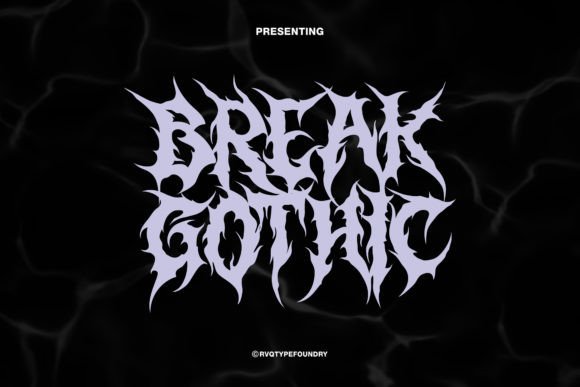
Introducing Break Gothic Font, the ultimate choice for unleashing your inner rocker and exploring dark themes. Created by Rvq Type Foundry, this cool and edgy display font is inspired by the brutal aesthetics of death-metal culture.
With its sharp and angular letterforms, Break Gothic exudes power and intensity, capturing the essence of the rebellious spirit. Its bold strokes command attention and make a bold statement, making it the perfect font for impactful headlines, album covers, and posters.
Are you ready to make a lasting impression? Break Gothic Font is here to help you stand out from the crowd. Its raw and rebellious style sets you apart, leaving a lasting mark on your audience.
Picture this: a Halloween party invitation with Break Gothic Font. The words come to life, sending shivers down your spine, as the font perfectly captures the eerie atmosphere. It's the best font to use for Halloween-themed projects, adding a touch of darkness and intrigue.
But Break Gothic Font doesn't stop there. Its versatility extends beyond Halloween. Looking to create a powerful and captivating logo? Break Gothic has got you covered. Its bold and commanding presence instantly grabs attention and leaves a lasting impression.
Let your creativity run wild with Break Gothic Font. Its edgy and daring nature allows you to explore new boundaries and push the limits of design. Express yourself like never before and watch as your projects come to life with a touch of raw energy.
Join the ranks of renowned designers and artists who have discovered the power of Break Gothic Font. Its unique and captivating style has made it a favorite among those seeking to make a statement. Don't settle for ordinary fonts - elevate your designs with Break Gothic.
In conclusion, Break Gothic Font is the ultimate choice for those seeking to make an impact. Its cool and edgy style, inspired by death-metal culture, sets it apart from the rest. Whether you're creating Halloween-themed projects or looking to make a bold statement, Break Gothic Font is your go-to choice. Unleash your inner rocker and let your creativity shine with Break Gothic Font.